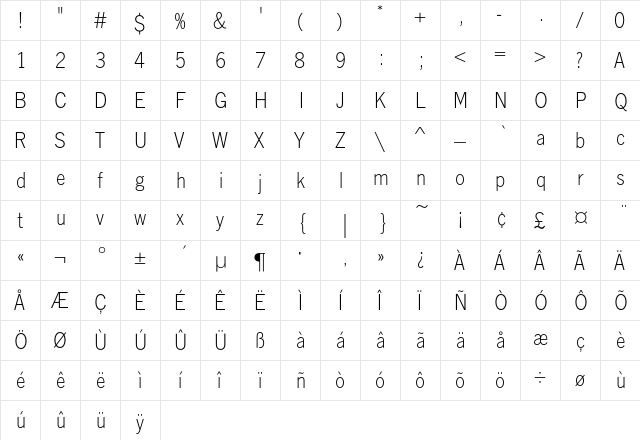
LightlineGothicEF Regular Font Preview
LightlineGothicEF Regular
Design Context for LightlineGothicEF Typeface
LightlineGothicEF takes a clean, functional approach — its unadorned letterforms prioritise legibility and work reliably across screen and print environments. The delicate stroke weight brings airiness and refinement to layouts.
Ideal for fashion and beauty branding, minimal editorial layouts, and premium digital experiences.
Font Pairing: Pair LightlineGothicEF with a medium or bold serif for headlines — the weight contrast creates an elegant, high-end feel.
Pro Tip: Avoid using LightlineGothicEF at very small sizes where its slender strokes can disappear. It performs best at medium to large sizes.